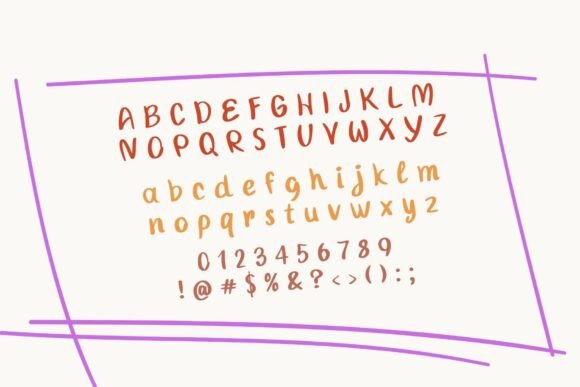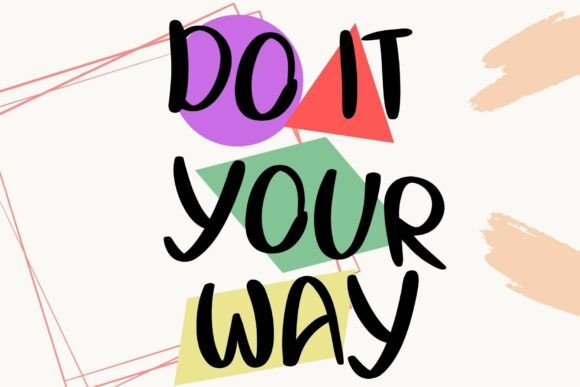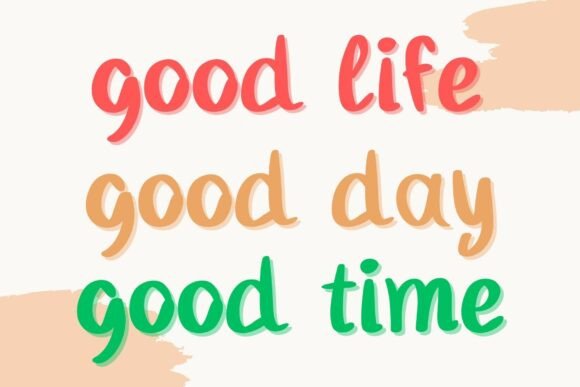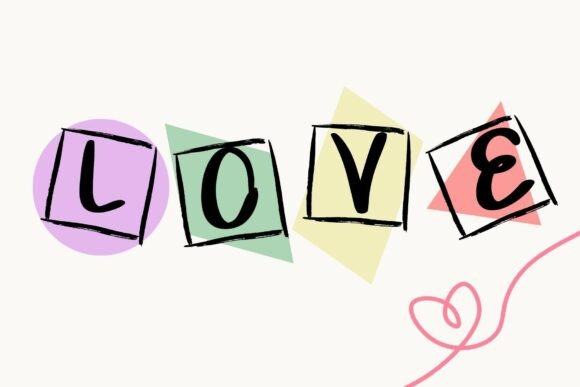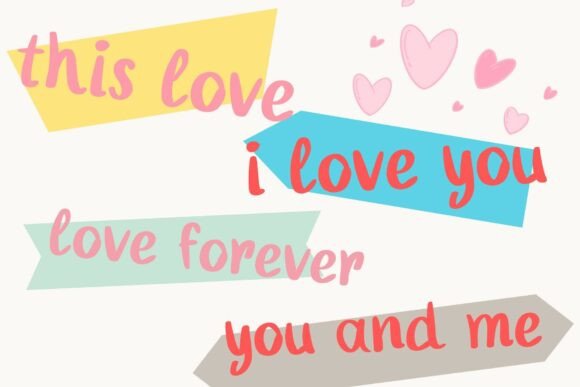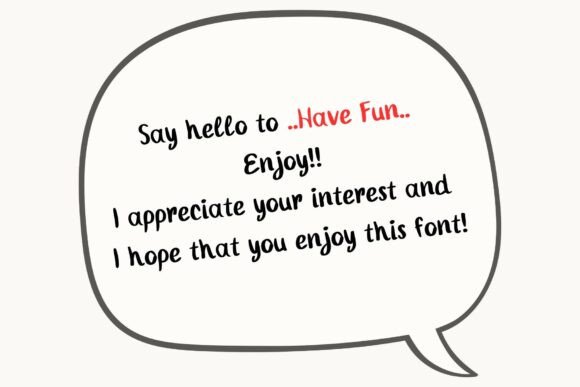
Introducing Have Fun Font: The Perfect Handwritten Font for Creative Projects
Are you a designer, crafter, or DIY enthusiast looking for a unique and playful font to add a personal touch to your projects? Look no further than Have Fun Font, a beautiful handwritten font that’s perfect for a wide range of applications. In this article, we’ll explore the features and benefits of Have Fun Font, and show you can use it to take your creative projects to the next level.
What is Have Fun Font?
Have Fun Font is a carefully crafted handwritten font that’s designed to bring a sense of joy and playfulness to your documents. With its smooth, flowing lines and whimsical charm, this font is perfect for adding a personal touch to your digital note-taking, digital planners, quotations, banners, logos, product packaging, titles, headers, menu lists, and more.
Key Features of Have Fun Font
- Handwritten style: Have Fun Font features a beautiful, handwritten style that’s perfect for creating unique and eye-catching designs.
- Easy to read: Despite its playful style, Have Fun Font is easy to read and understand, making it perfect for use in digital documents and printed materials.
- Versatile: Have Fun Font can be used in a wide range of applications, from digital note-taking and digital planners to quotations, banners, logos, and more.
Benefits of Using Have Fun Font
So why choose Have Fun Font for your creative projects? Here are just a few benefits of using this amazing font:
- Adds a personal touch: Have Fun Font adds a personal touch to your designs, making them stand out from the crowd.
- Increases creativity: The playful style of Have Fun Font can help inspire creativity and imagination in your designs.
- Perfect for DIY projects: Have Fun Font is perfect for use in DIY projects, such as crafting, scrapbooking, and more.
- Great for branding: The unique style of Have Fun Font makes it perfect for use in branding and marketing materials.
How to Use Have Fun Font
Using Have Fun Font is easy! Here are a few tips to get you started:
- Digital note-taking: Use Have Fun Font to add a personal touch to your digital notes and journals.
- Digital planners: Add Have Fun Font to your digital planners and organizers for a touch of whimsy and fun.
- Quotations and posters: Use Have Fun Font to create eye-catching quotations and posters for social media or print.
- Logos and branding: Have Fun Font is perfect for use in logos, branding, and marketing materials.
- Product packaging: Add a personal touch to your product packaging with Have Fun Font.
Tips and Tricks for Working with Have Fun Font
Here are a few tips and tricks to help you get the most out of Have Fun Font:
- Experiment with colors: Have Fun Font looks great in a wide range of colors, so don’t be afraid to experiment and find the perfect hue for your design.
- Mix and match: Try pairing Have Fun Font with other fonts and styles to create a unique and eye-catching design.
- Use it sparingly: While Have Fun Font is perfect for adding a personal touch to your designs, it’s best to use it sparingly to avoid overwhelming the reader.
In conclusion, Have Fun Font is a beautiful handwritten font that’s perfect for designers, crafters, and DIY enthusiasts looking to add a personal touch to their creative projects. With its smooth, flowing lines and whimsical charm, this font is sure to bring a sense of joy and playfulness to your designs. So why wait? Download Have Fun Font today and start creating unique and eye-catching designs that stand out from the crowd!